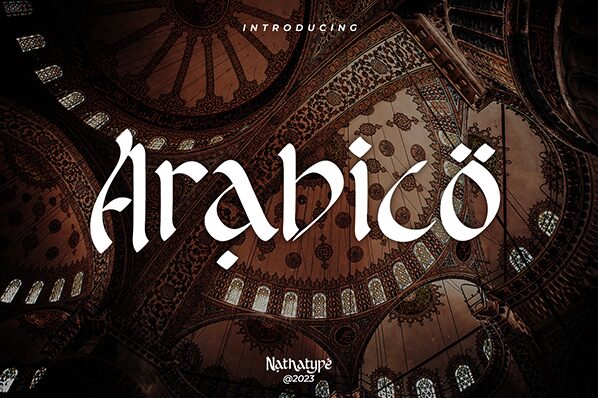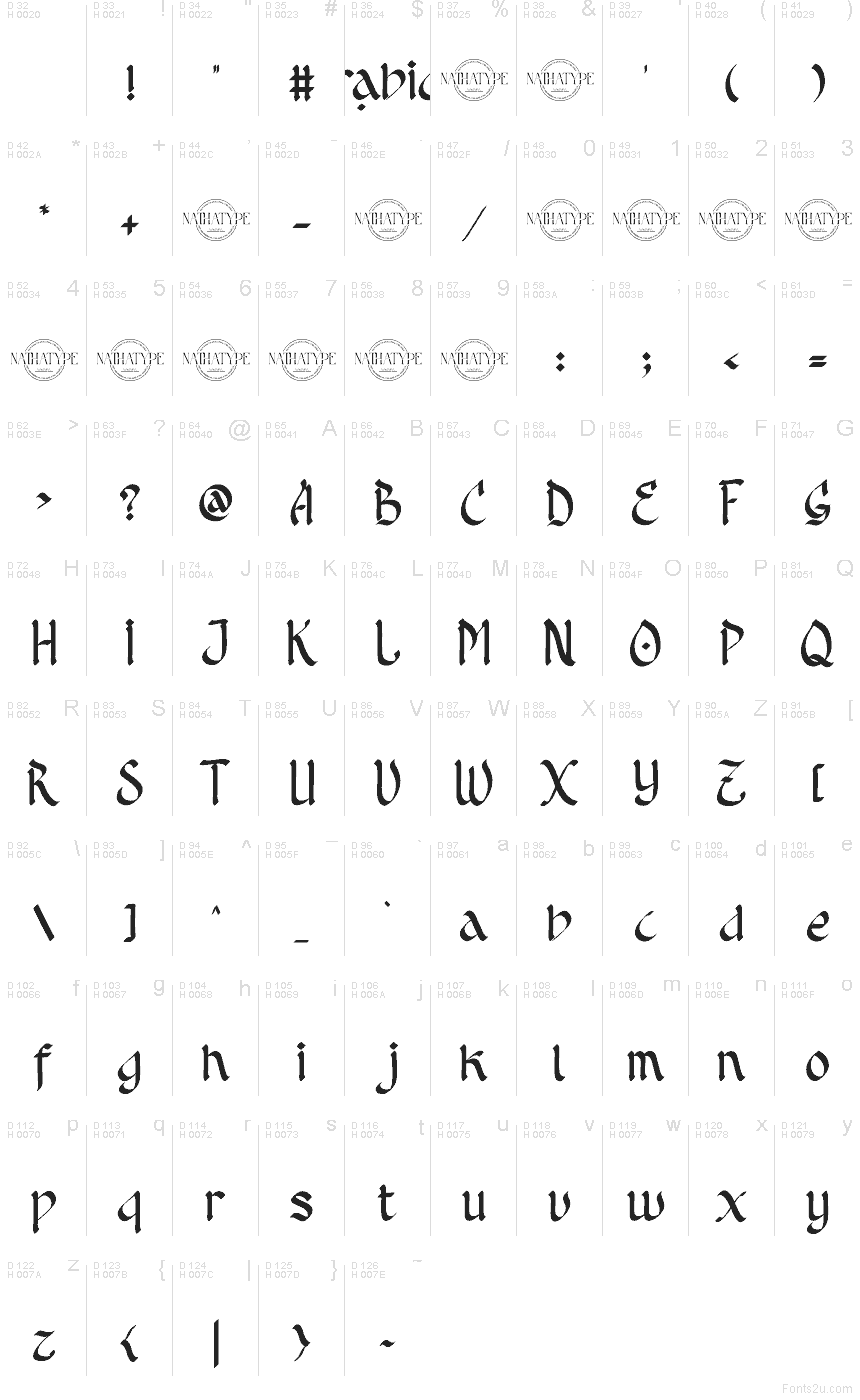
Arabico font by Nathatype is a free faux Arabic foreign typeface that captures the inky sweep and drama of traditional calligraphy without sacrificing legibility in Latin letters. Its flowing strokes, tapered curves, and sculpted counters feel like they were brushed onto textured paper, giving your titles a sense of ceremony and warmth. The rhythm between letters is tight and intentional, so words lock together in a bold, unified wordmark.
Using Arabico, you can instantly give restaurant branding, tea or spice packaging, festival posters, book covers, menus, and social graphics a rich Middle Eastern-inspired mood. This free font shines at larger sizes where its ornate shapes can breathe, while a simple geometric sans serif works beautifully beside it for supporting text.